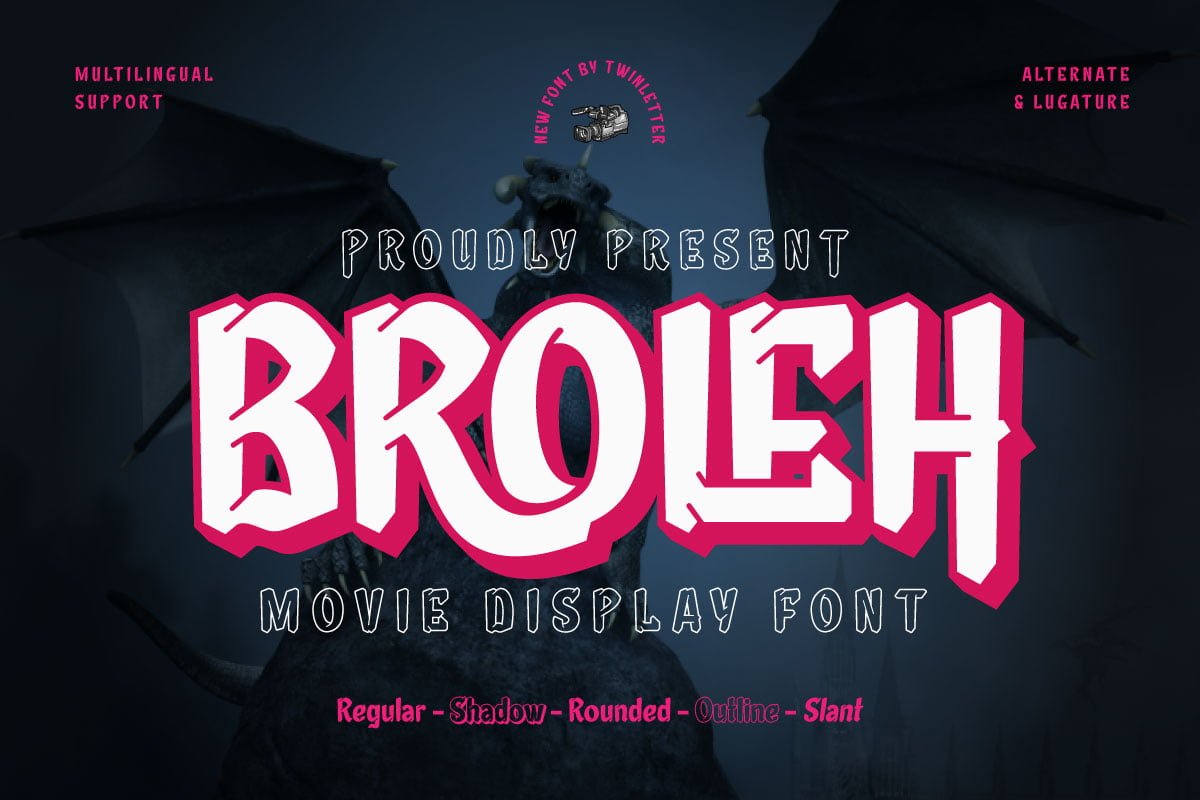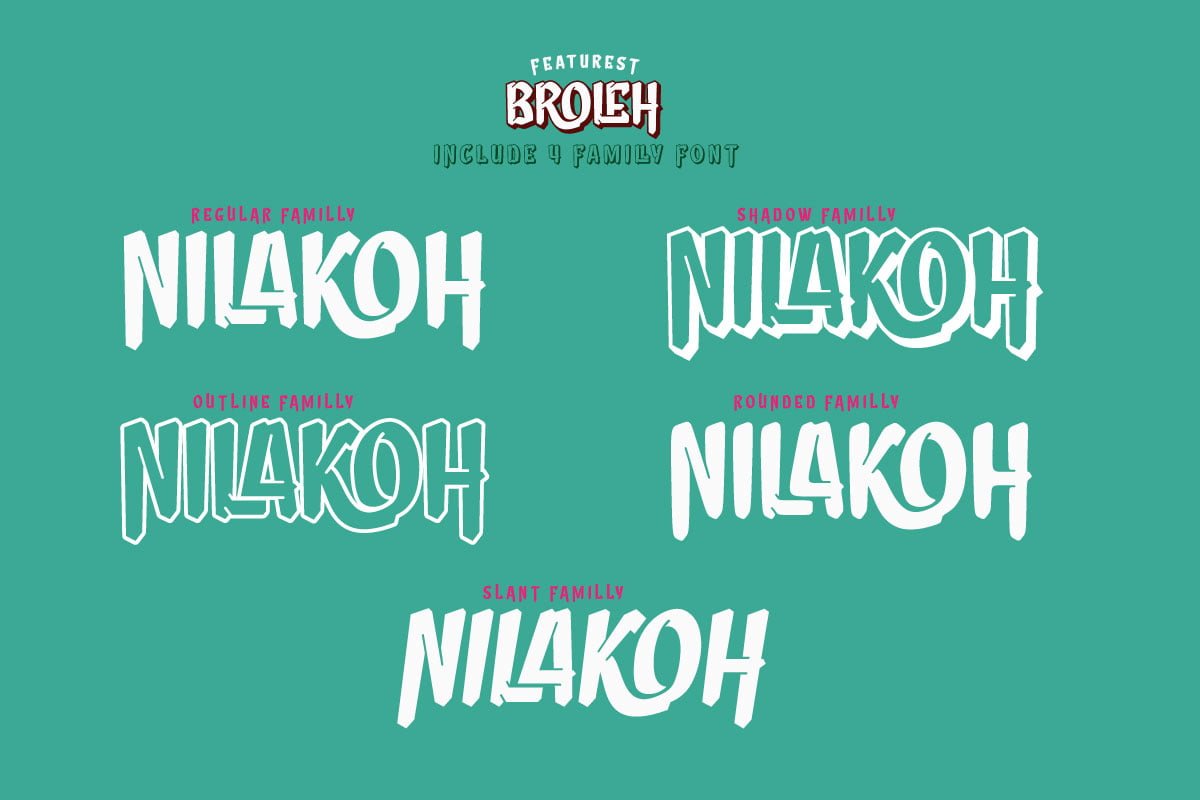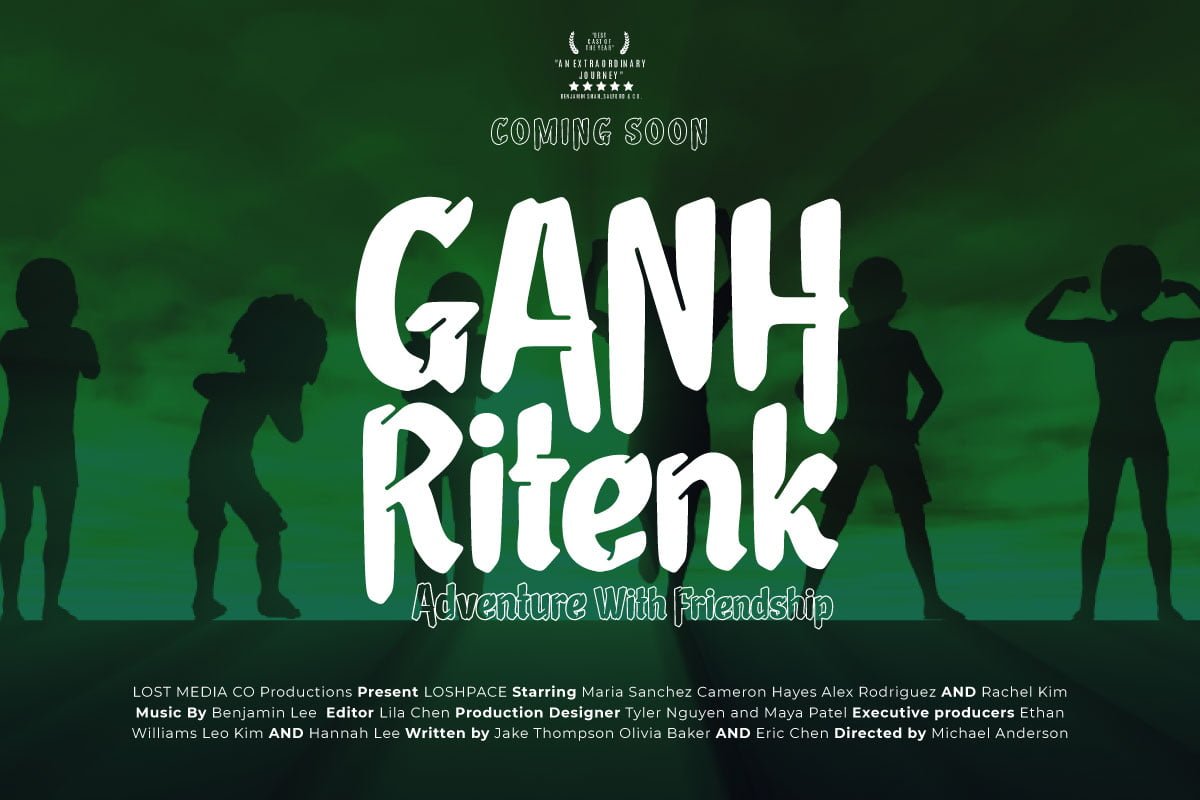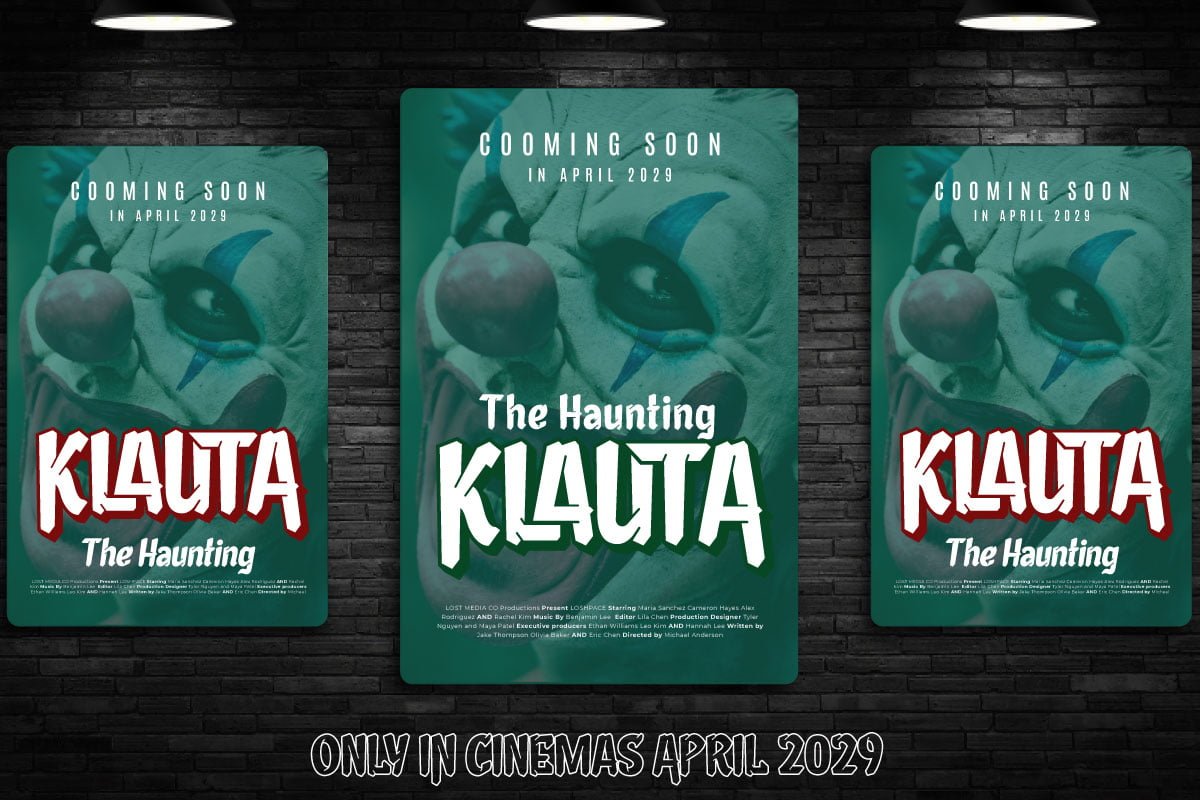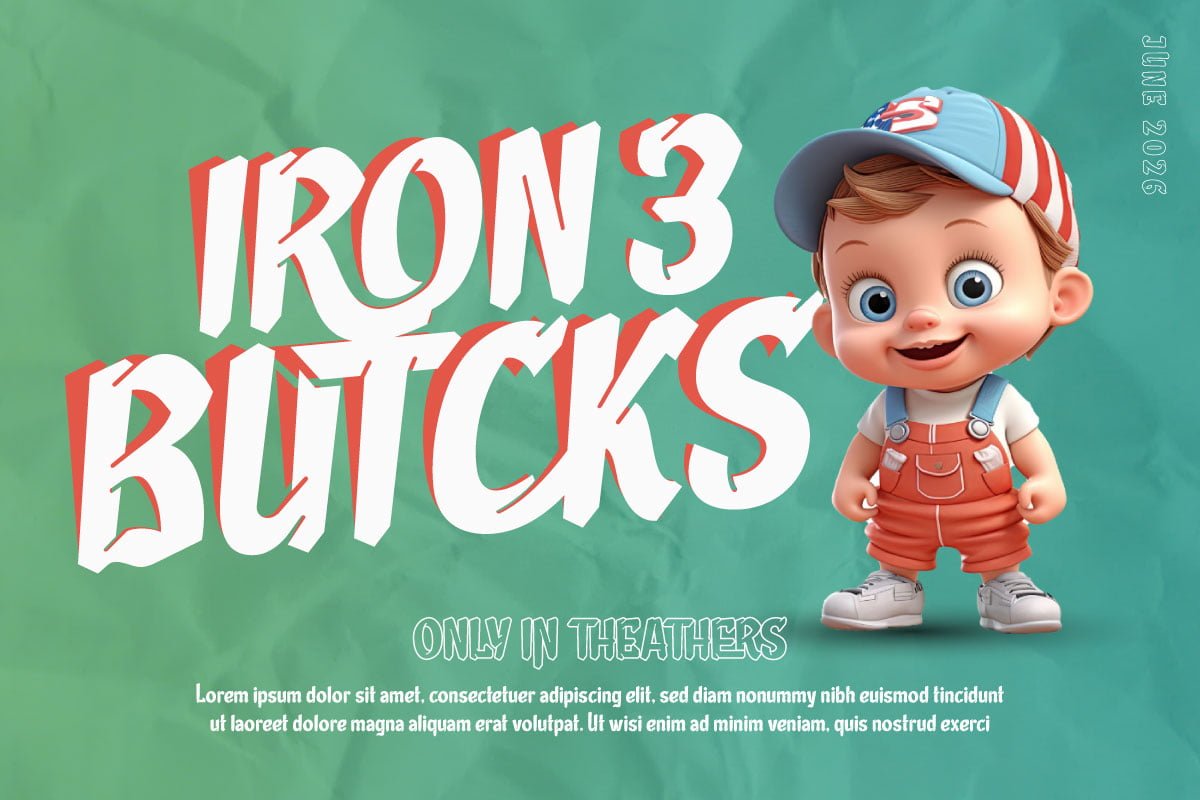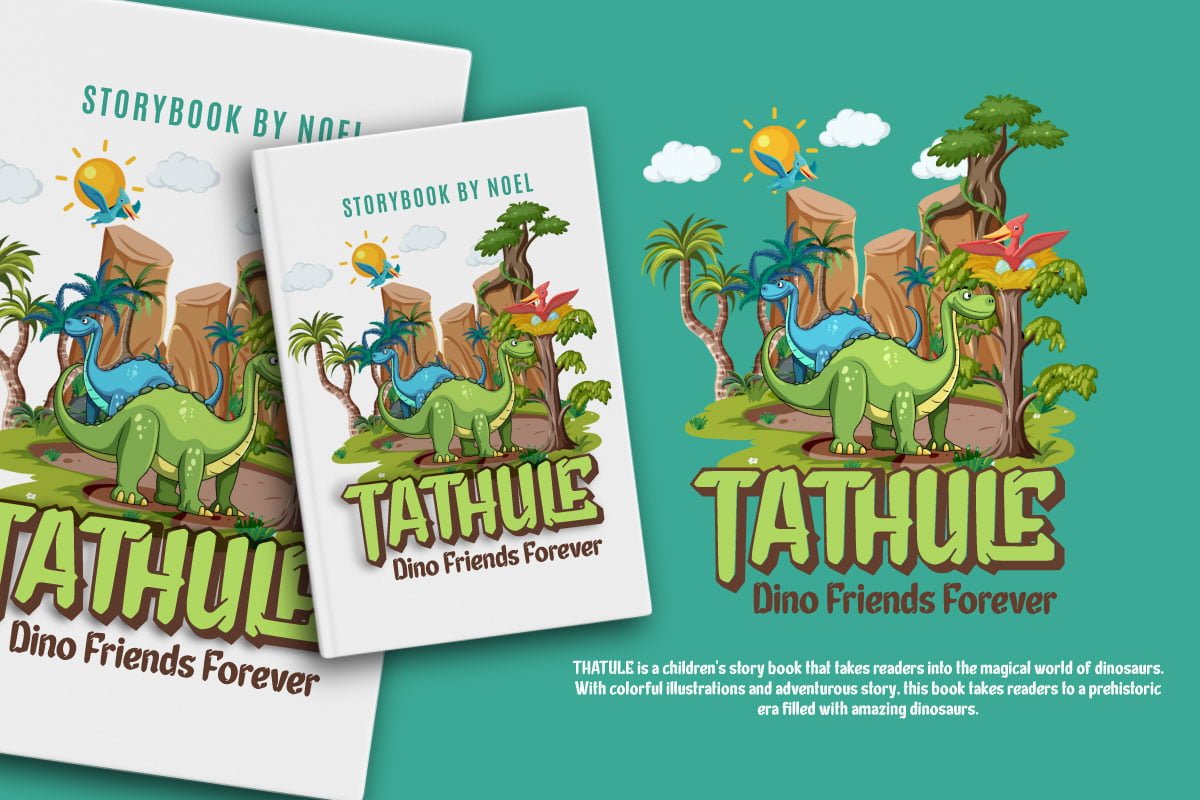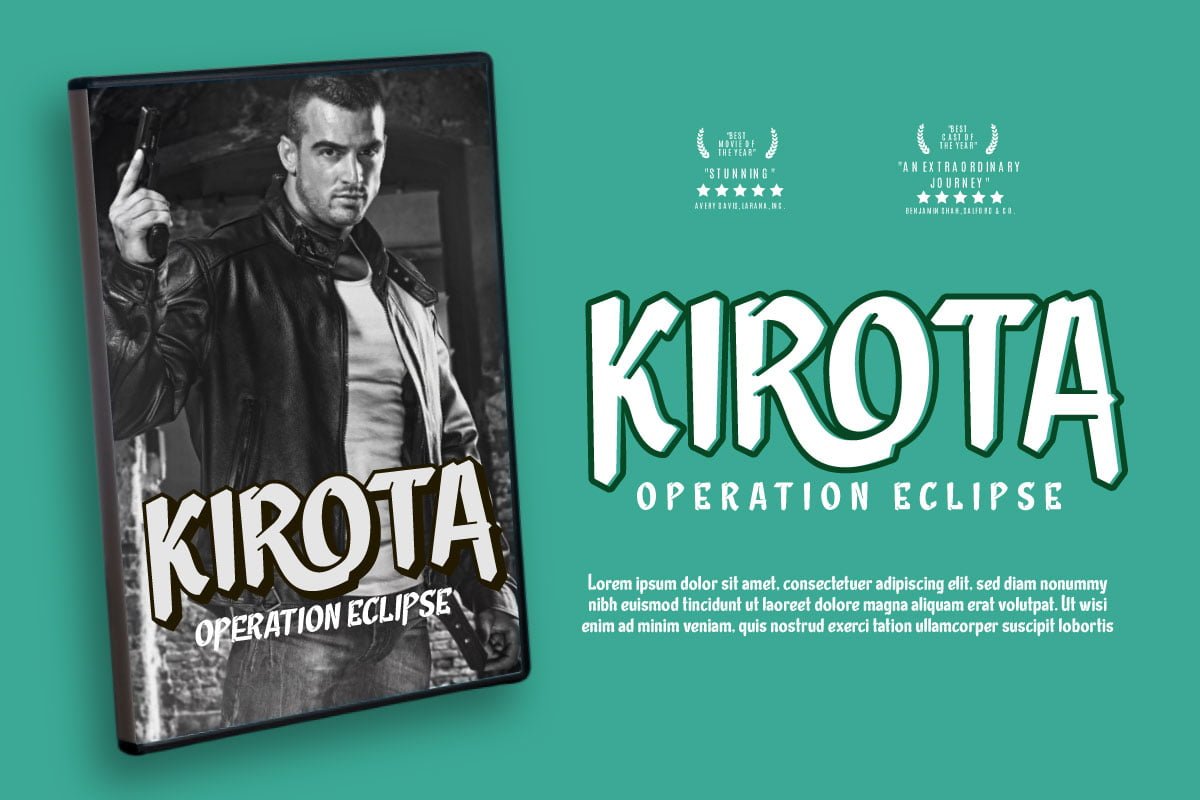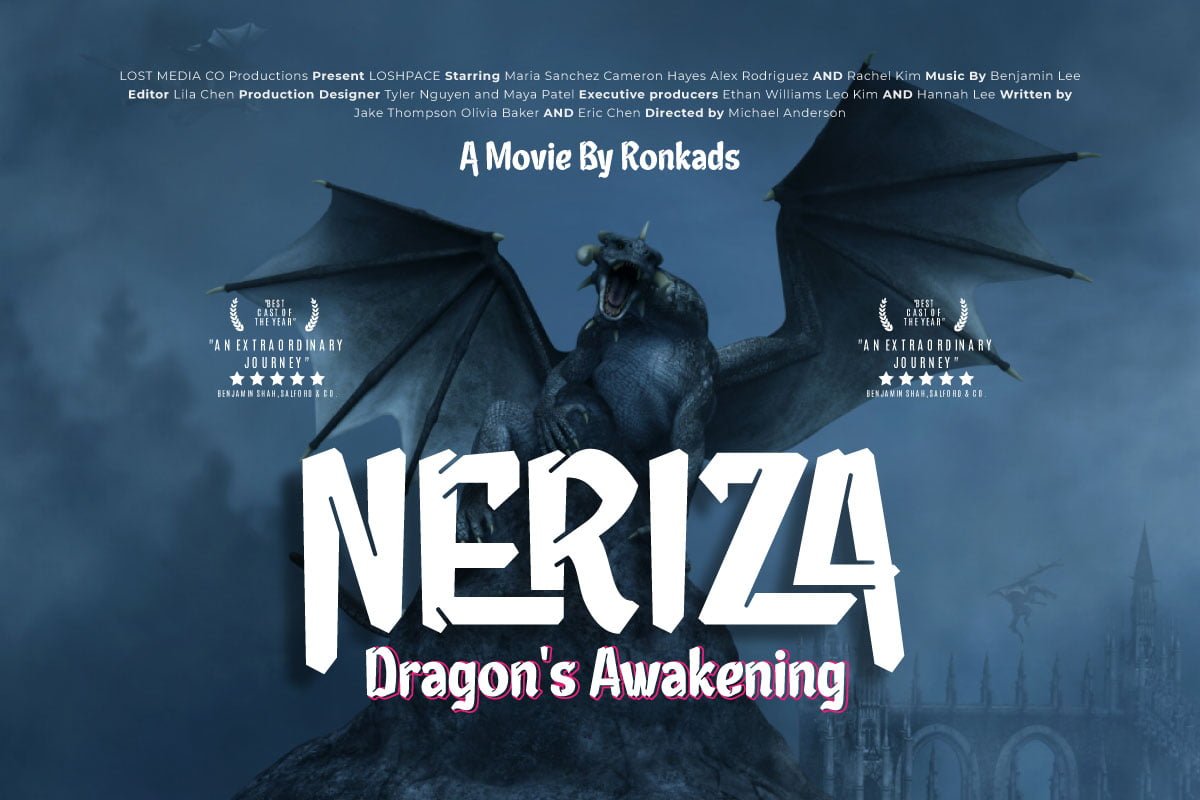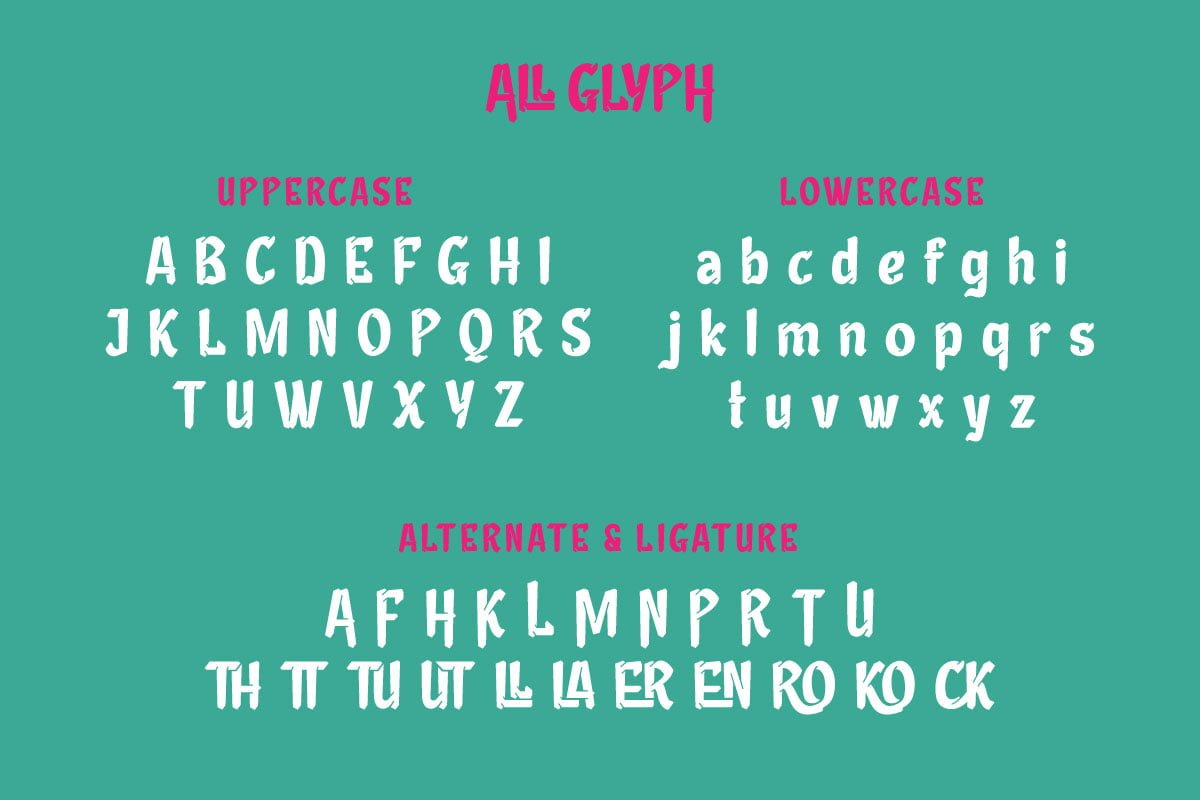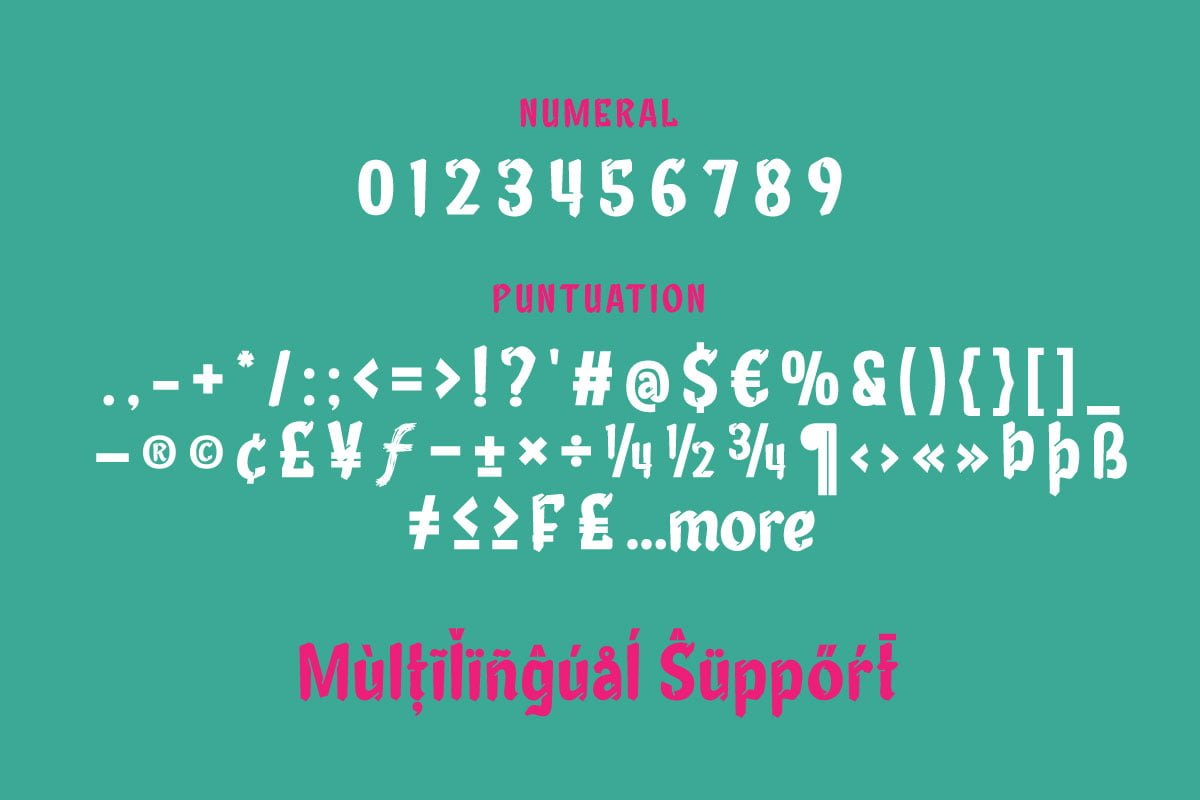
- Broleh – Movie Display Font
Broleh is a display typeface specifically designed to give a strong and dramatic look to design projects related to film. This font combines modern elements with an artistic touch, creating a stunning and engaging character.
Each letter in Broleh has a strong and bold design, with details that create an impression of boldness and exclusivity. This font is ideal for use in film titles, posters, or other film promotional materials that require a striking visual effect.
Broleh’s color palette can include contrasting, intense colors, such as black, dark red, or navy, to add an element of drama and mystery to the look. These colors can create an atmosphere that suits a variety of film genres, from thriller to action or drama.
Broleh boasts a professional and exclusive touch, making it a strong choice for creating striking design elements in a cinematic world. This font can give a deep and impressive impression, thereby increasing the visual appeal of your film design projects.